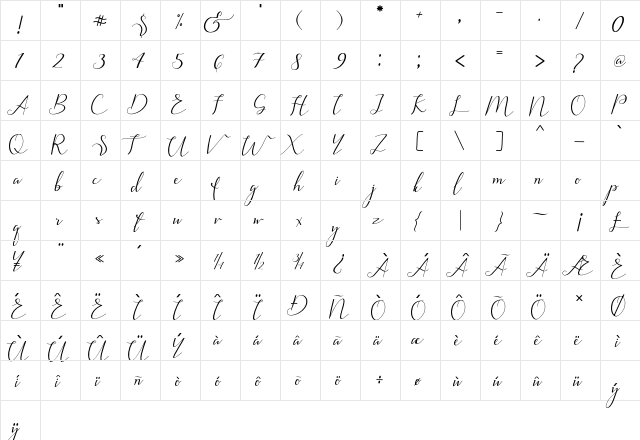
larisa Regular Font Preview
larisa Regular
larisa Regular Font Details
| Foundry | belovestudio |
| Designer | abdul manan |
Design Context for larisa Typeface
larisa is a composed and adaptable typeface that performs quietly and consistently across a wide range of design contexts.